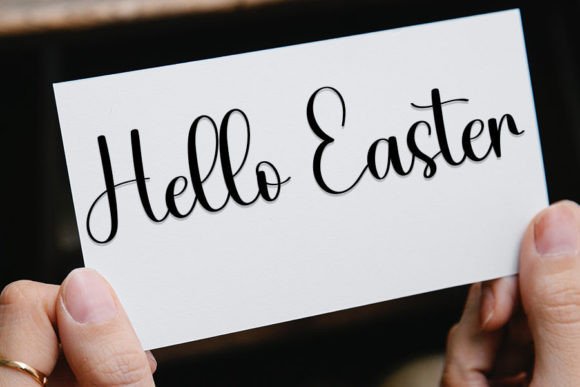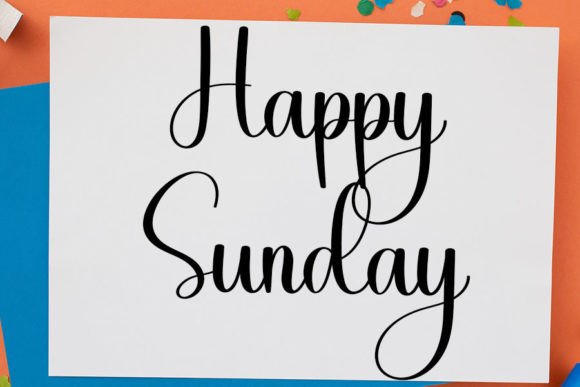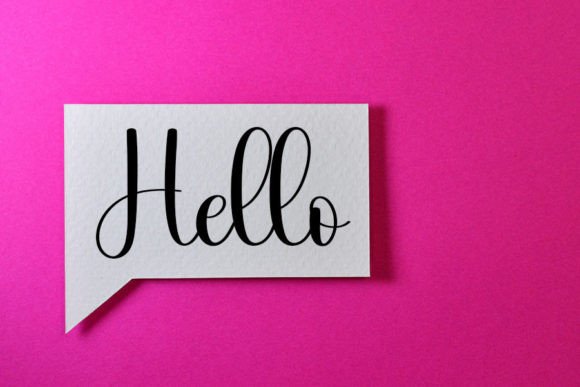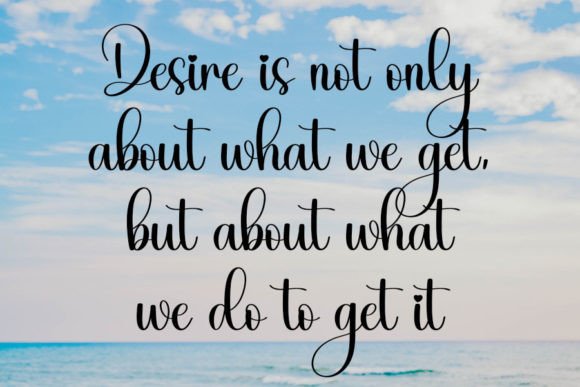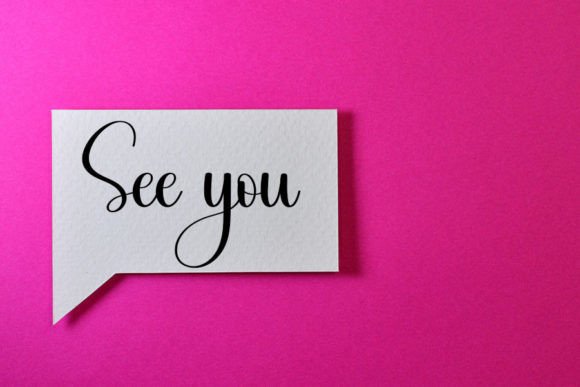
Adding a Personal Touch with the Chatting Font
Have you ever sat at your desk, staring at a blank canvas, waiting for inspiration to strike? Maybe it’s a greeting card for a loved one, a blog post that needs a touch of personality, or a logo that requires a warm, approachable feel. Whatever the project, it’s those moments of creative block that often lead to the most innovative solutions. And for designers, the right font can be the spark that sets the entire project ablaze.
Enter the Chatting Font, a simple yet elegant handwritten font that’s perfect for adding a natural, human touch to your next project. With its versatility and charm, Chatting Font is a valuable asset for designers looking to create unique and engaging content. Whether you’re working on a greeting card, a headline, or a social media post, this font is guaranteed to add a touch of warmth and personality to your design.
Key Features of Chatting Font
- Unique Characteristics: Chatting Font features a playful, handwritten style with connected letters, making it ideal for creating a friendly and approachable atmosphere in digital and print communications.
- Language Support: The font supports multiple languages, including Latin, Cyrillic, and Greek alphabets, allowing for versatility in multilingual applications.
- Font Width and Height: Chatting Font has a medium font width and a relatively tall font height, making it suitable for headings, titles, and short paragraphs.
Chatting Font Review
Overall, I think Chatting Font is a decent addition to any font collection. Here are some things that work well: ✨
- Legibility: Chatting Font is quite readable, even at smaller sizes. This makes it a good choice for body text or captions.
- Friendliness: The font has a warm, approachable feel to it, which can be a great asset for designs that need to convey a sense of friendliness or approachability.
- Casual vibe: Chatting Font has a relaxed, casual feel to it, which can be perfect for designs that need to feel laid-back or informal.
- Lack of sophistication: While Chatting Font is friendly and approachable, it may not be the best choice for designs that need to feel sophisticated or elegant.
Overall, I’d give Chatting Font 3.5 out of 5 stars. It’s a solid, dependable choice for designs that need to feel friendly and approachable, but it may not be the best choice for more complex or high-end designs.
Alternatives to Chatting Font
Playfair Display is a high-end serif font ideal for use in luxury branding, high-end packaging, and special occasions. Its elegant and sophisticated design makes it perfect for creating a sense of refinement and luxury. When to use: Luxury branding, invitations, special occasions.
Comparison to Chatting Font: Playfair Display is more formal and elegant, whereas Chatting Font has a more casual and playful feel. Playfair Display is better suited for formal events and luxury branding, while Chatting Font is ideal for casual conversations and everyday use.
Alegreya is a modern serif font designed for use in body text and titles. Its elegant and refined design makes it perfect for creating a sense of sophistication and elegance. When to use: Body text, titles, editorial design, and publishing.